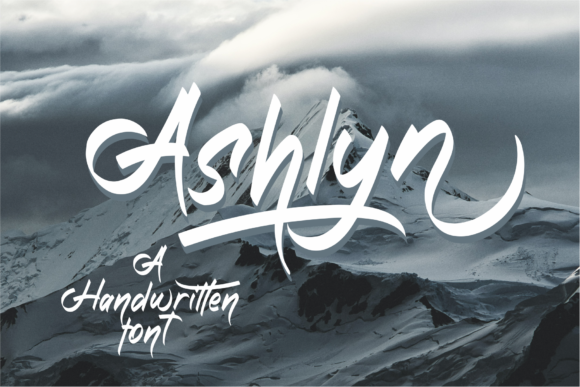
Immerse yourself in the captivating world of Ashlyn Font, a modern handwritten masterpiece designed to ignite the passion of your creative endeavors. Each stroke whispers a tale of elegance and authenticity, evoking a touch of human artistry to your digital designs.
Unleash your creativity with the versatility of Ashlyn Font, a display font that seamlessly adapts to a myriad of projects. From heartfelt invitations and captivating social media posts to stunning branding and website designs, Ashlyn Font possesses a timeless charm that will elevate your creations to new heights.
Indulge in the seamless flow of Ashlyn Font, meticulously crafted to provide an effortless user experience. Its PUA encoding grants you the freedom to effortlessly access a treasure trove of glyphs and swashes, empowering you to add intricate details and expressive flourishes to your designs.
Step into a realm where imagination takes flight and creativity knows no bounds. Ashlyn Font empowers you to weave enchanting handwritten letters that dance across the digital canvas, captivating your audience with their raw beauty and emotional depth.
With Ashlyn Font, you unlock a world of endless possibilities. Let its graceful strokes guide your designs, evoking a sense of warmth and authenticity that resonates with your audience. Embark on a creative journey where every letter tells a story and every design becomes a masterpiece.